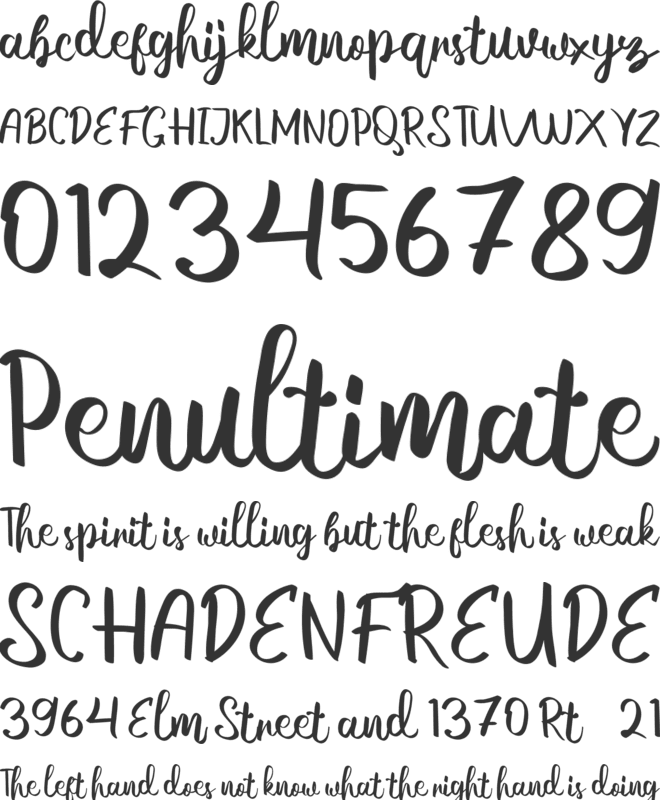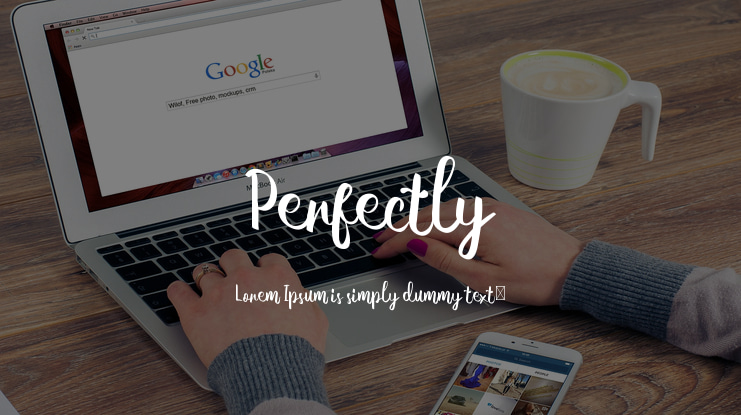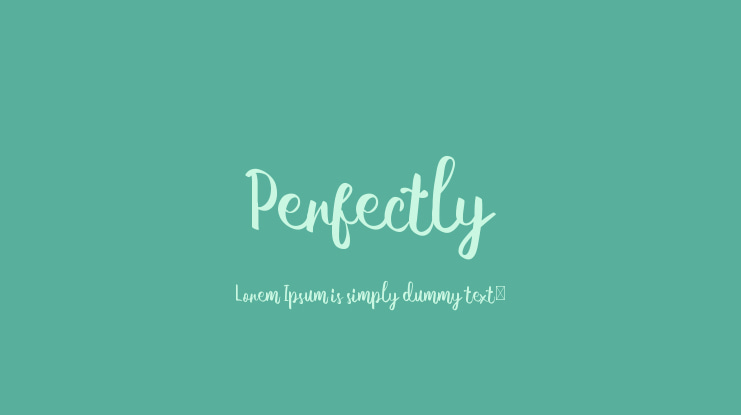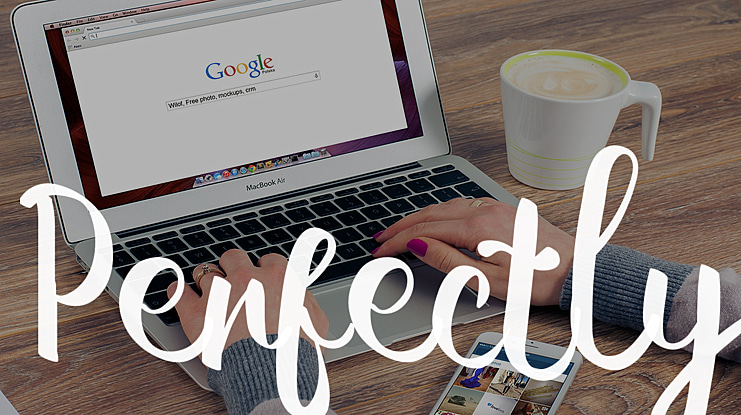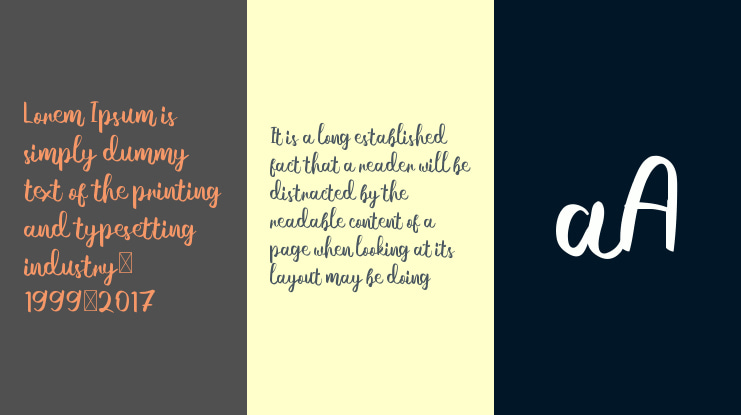
Perfectly Font
this font have 341 glyph, beautiful ligature, alternate and international glyphs. suitable for your beautiful project such as wedding invitation, greeting cards and more.